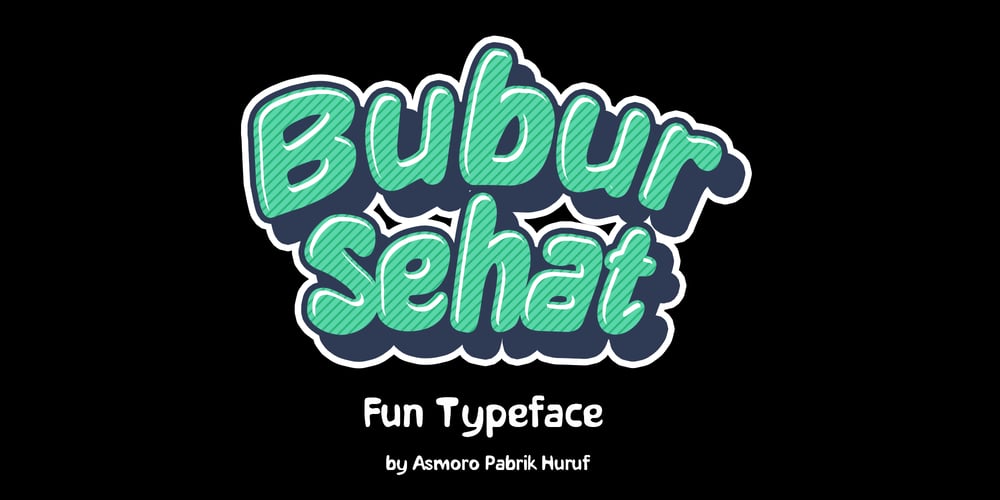
Bubur Sehat Font Family was designed by Dwi Asmoro and published by Asmoro Pabrik Huruf. Bubur Sehat contains 1 styles and family package options. Introducing Bubur Sehat, a soft and cheerful typeface inspired by the organic curves of porridge. With rounded and unstructured forms, Bubur Sehat adds a warm and friendly touch, making it perfect for design projects that aim to convey comfort and approachability.Design Uses: Bubur Sehat is ideal for children’s books, casual branding, food packaging, and digital designs that want to exude friendliness and fun.Unique Features: This font offers cheerful characters with high readability, including uppercase, lowercase, numbers, and punctuation. Its softness and randomness make it an appealing choice for creators.Pairing Suggestions: Consider pairing Bubur Sehat with a sans-serif or serif font to provide contrast and visual hierarchy.Design Concept: Bubur Sehat reflects the warmth of comfort food, aiming to evoke positive emotions and connections. With every curve, we hope this font inspires creativity in every design project.